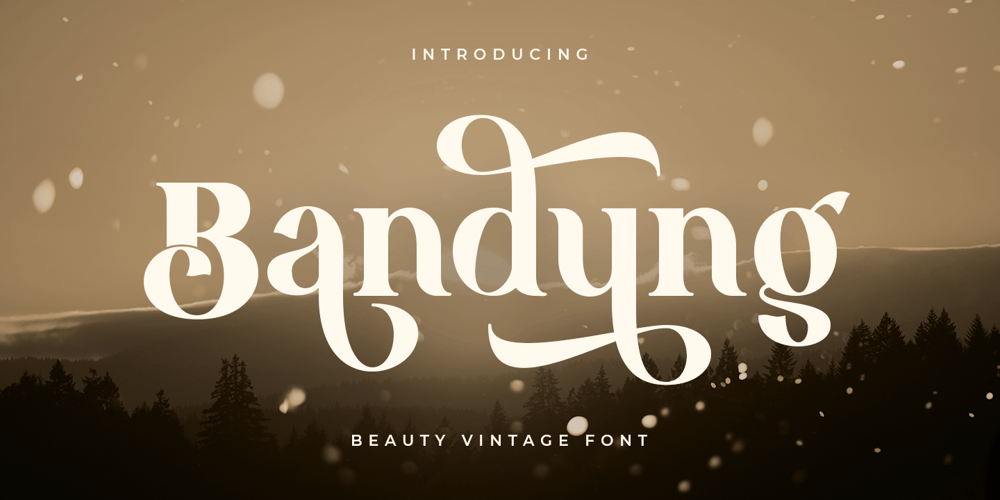
Bandung Style Font Family was designed by Zamroni Hamzah and published by Sensatype Studio. Bandung Style contains 1 styles and family package options. Bandung is A Beauty Retro Vintage Ligature font that special crafted with carefully to leverage your design projectA new font that we created special for branding needs, with unique characters and awesome ligature characters are ready to add value of your brand. It so nice to leverage designer or product owner that need solutions to make their design look more beauty and modern. And specially for Bandung font, We prepared any ligature characters to help you create unlimited variations for your creative needs.Bandung Beauty Retro Vintage Ligature font ready with: Any options to get creative variations (combination of Ligature) Preview as a inspirations that you can do with Bandung font Ready with Lowercase and Uppercase characters Wish you enjoy our font. 🙂